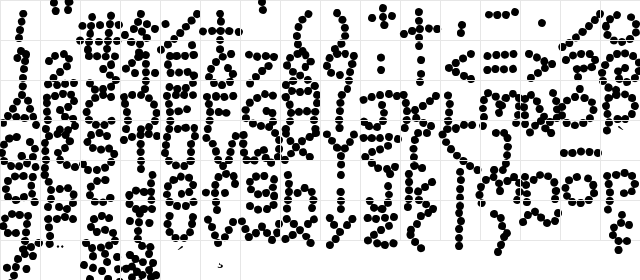
Bead Necklace Regular Font Preview
Bead Necklace Regular
Bead Necklace Regular Font Details
Design Context for Bead Necklace Typeface
Bead Necklace is a composed and adaptable typeface that performs quietly and consistently across a wide range of design contexts.